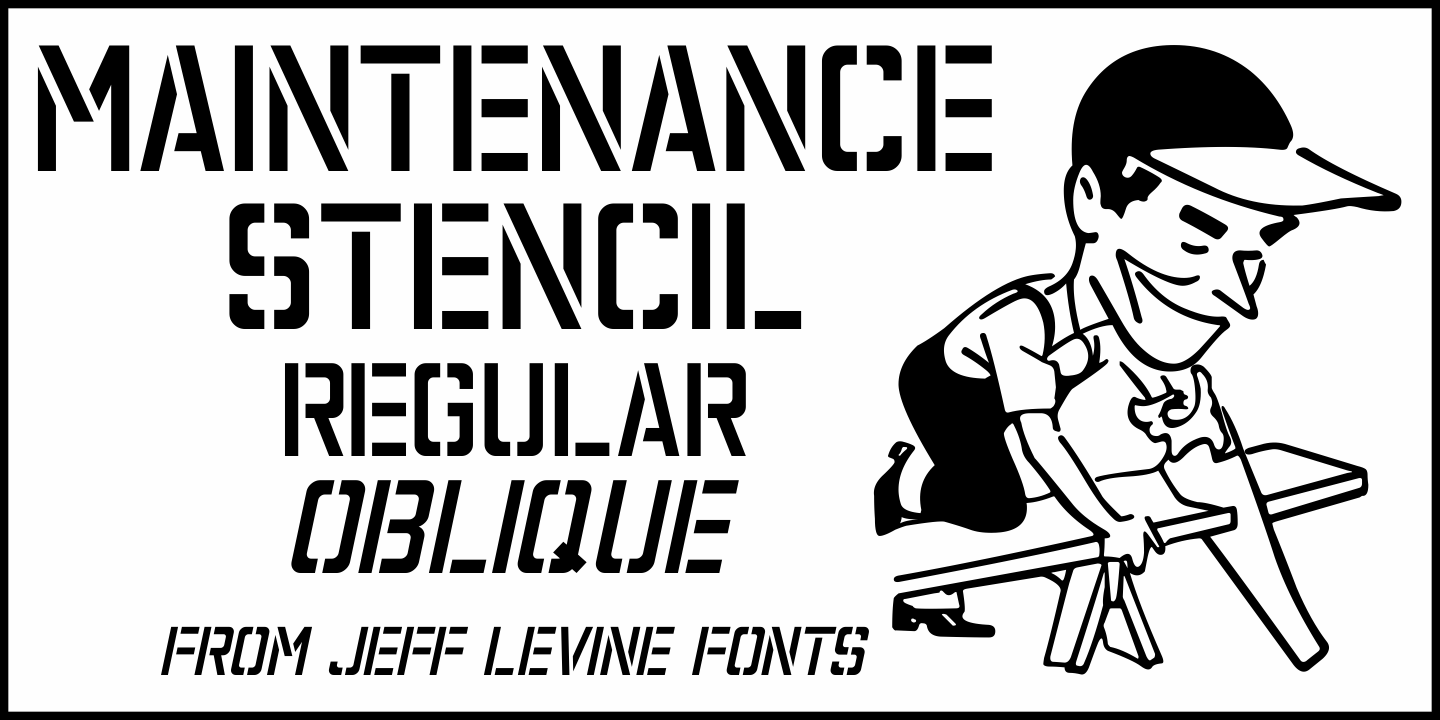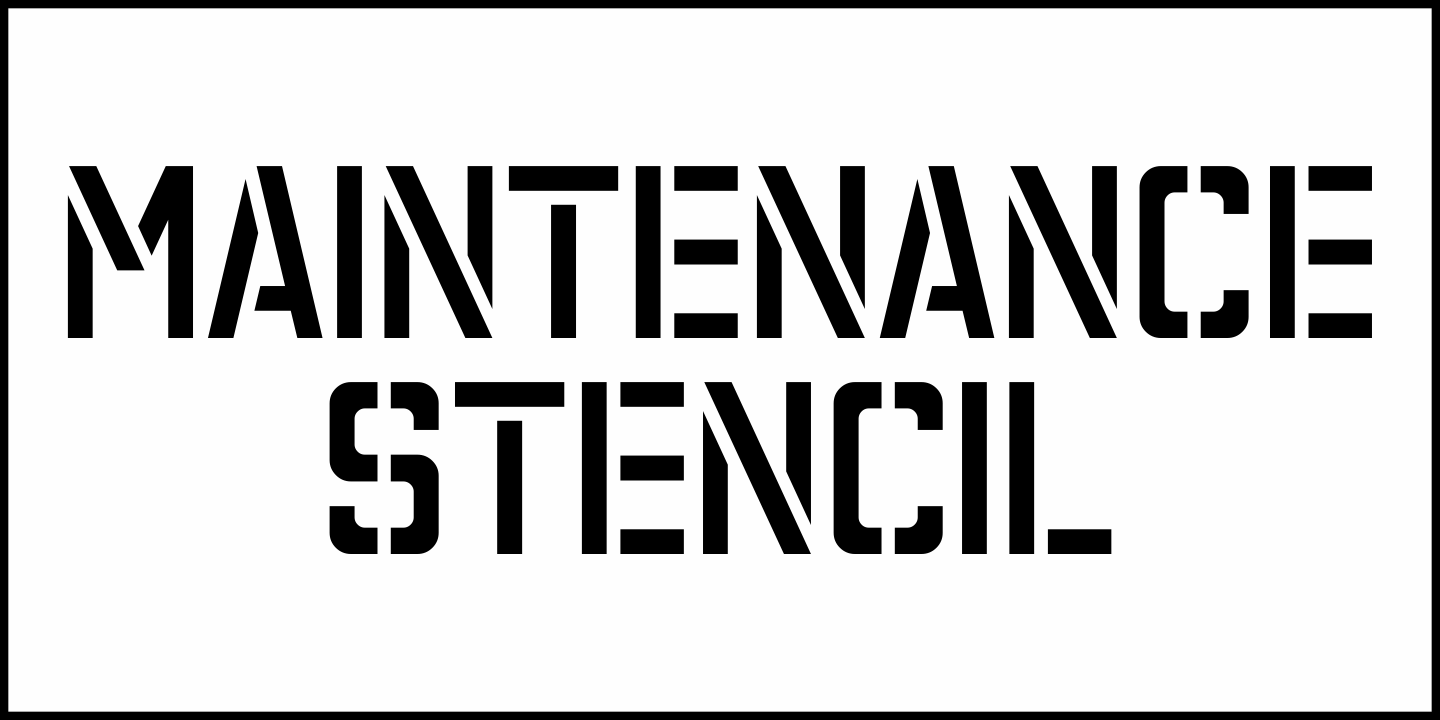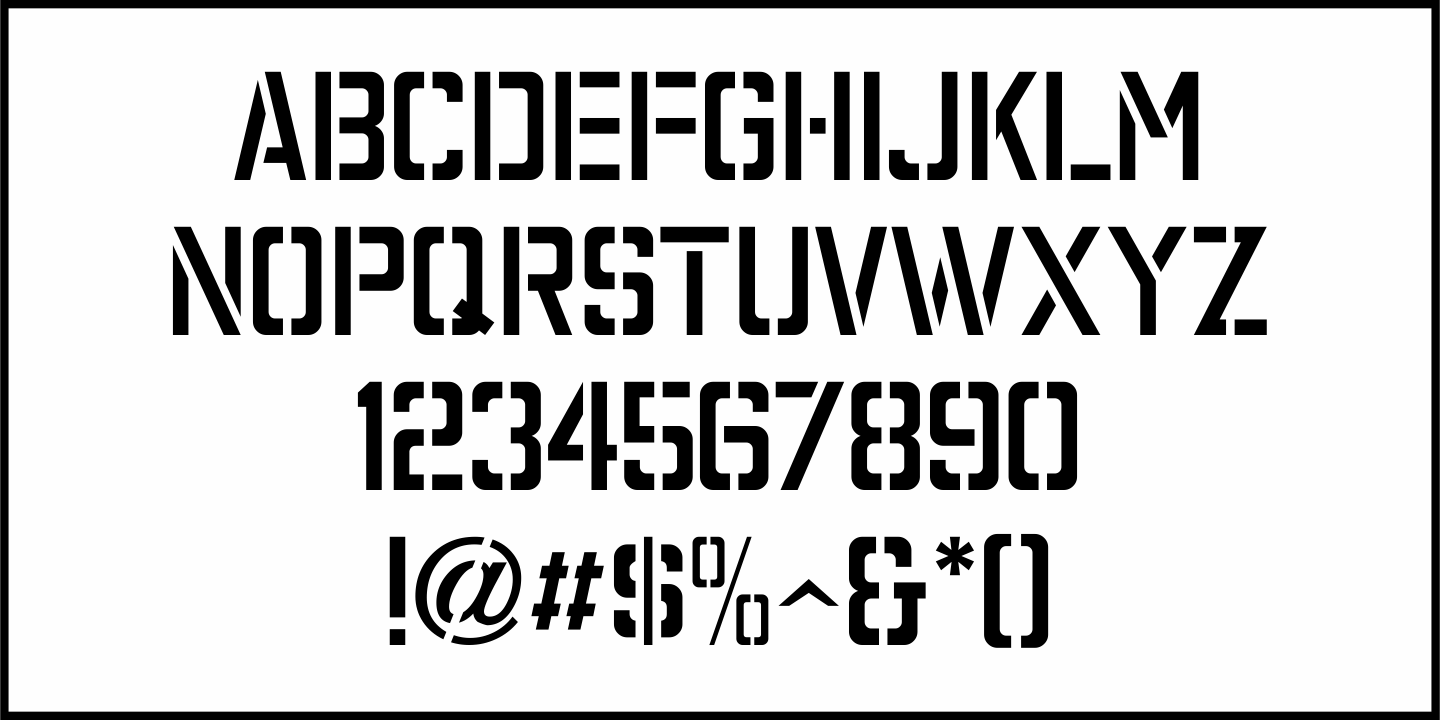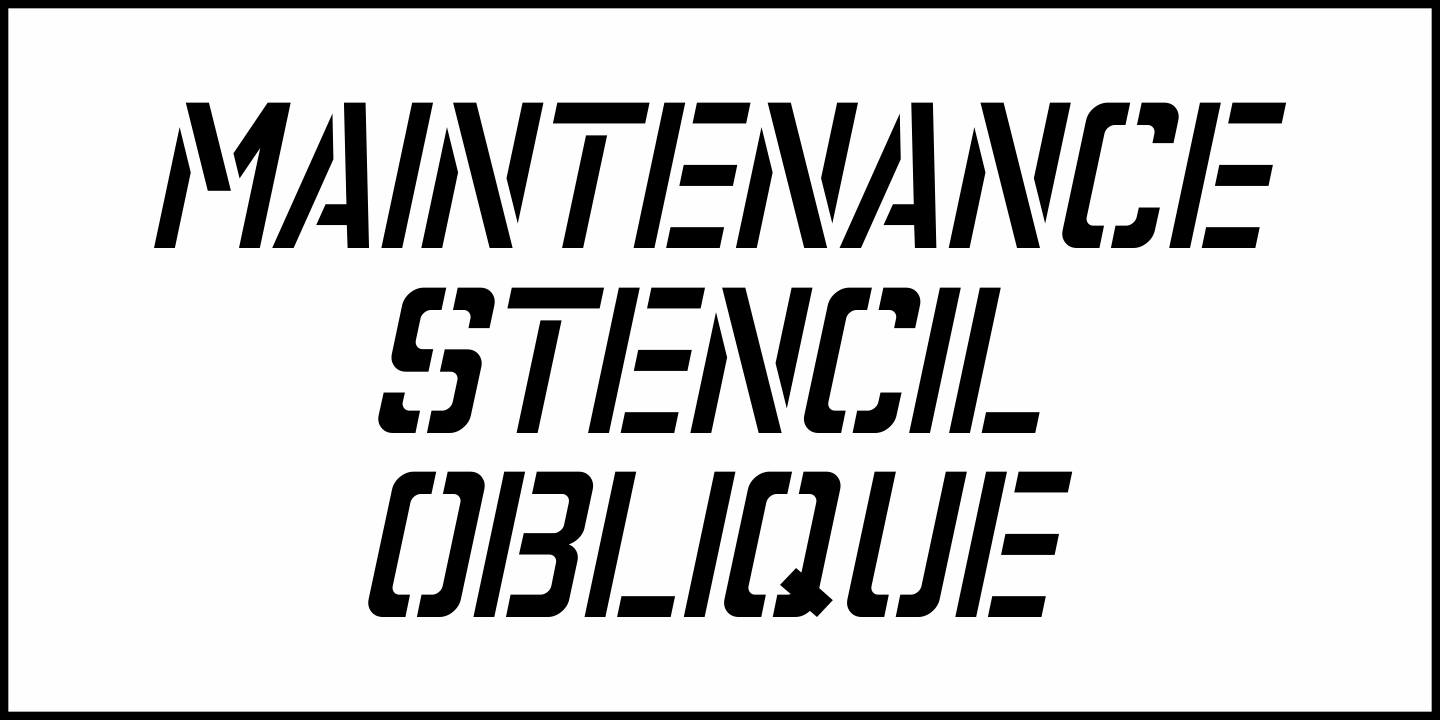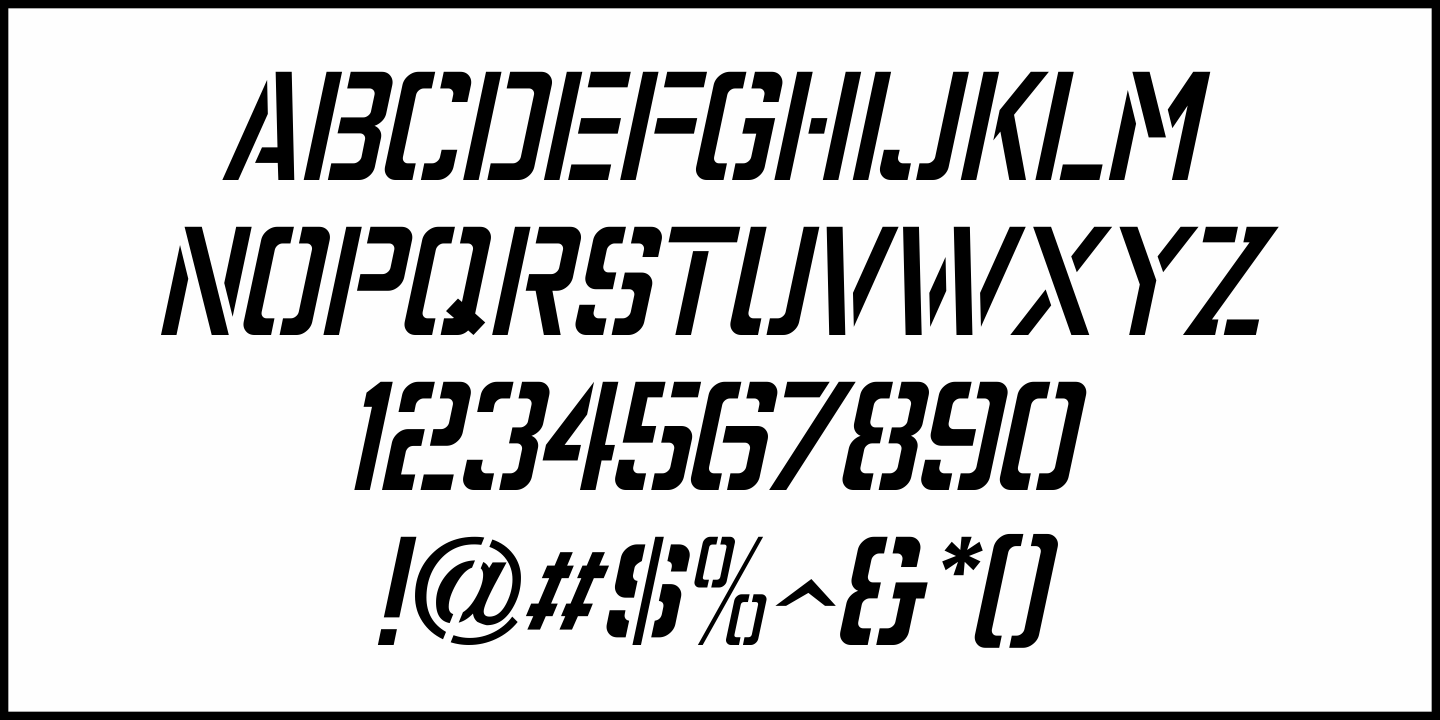
Maintenance Stencil
In the opening scenes of the 1938 Three Stooges comedy “Tassels in the Air” the Stooges are working as maintenance men inside an office building. Their immediate job requirement is to paint the tenants’ business names on the corresponding office doors with pre-cut stencils. Of course, they get it all wrong.
Nonetheless, the stencils appear to be a hand cut sans serif design in a squared or ‘block’ style with rounded corners, and some of the applied lettering made for an interesting challenge to recreate as a typeface.
The end result is Maintenance Stencil JNL, which is available in both regular and oblique versions.